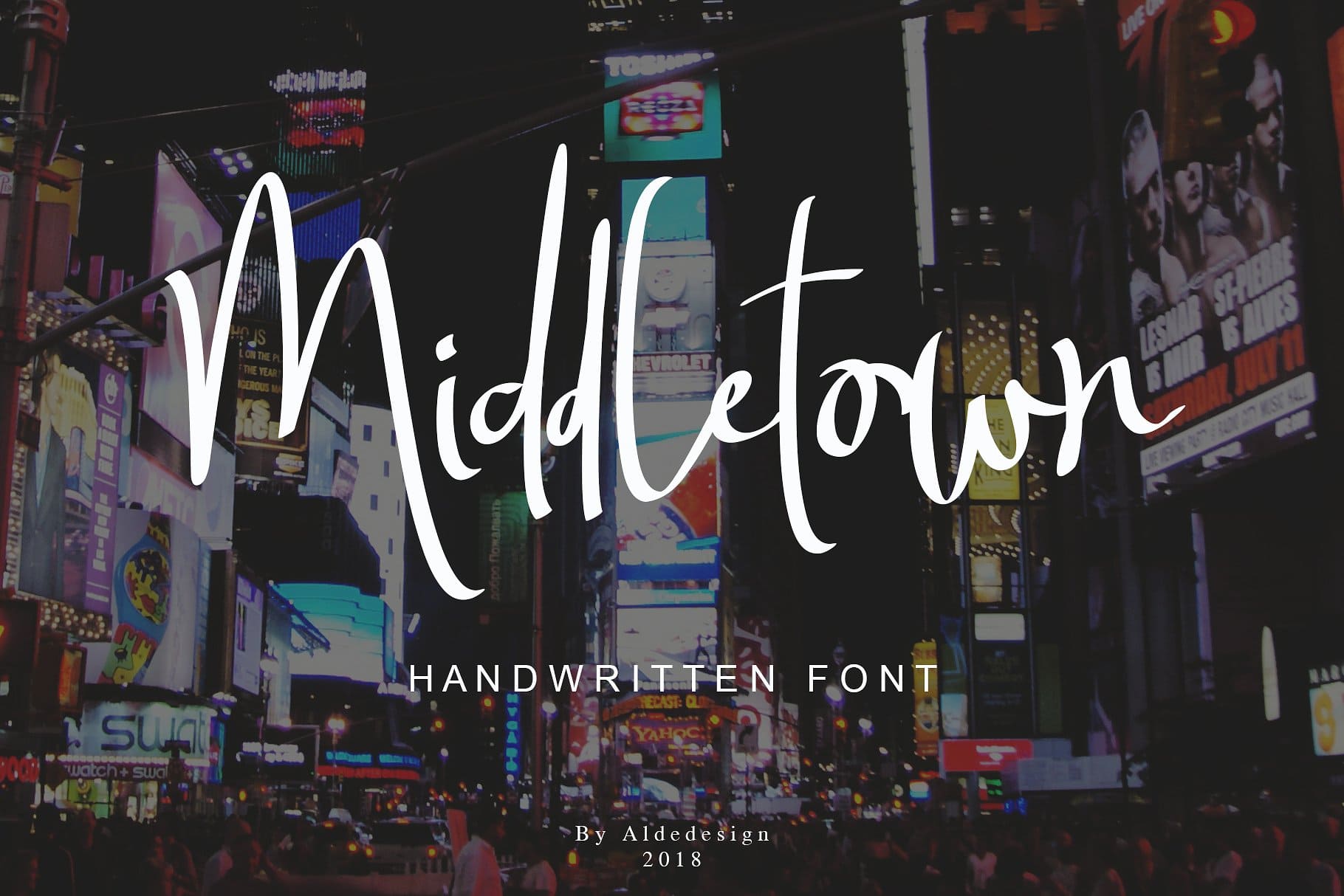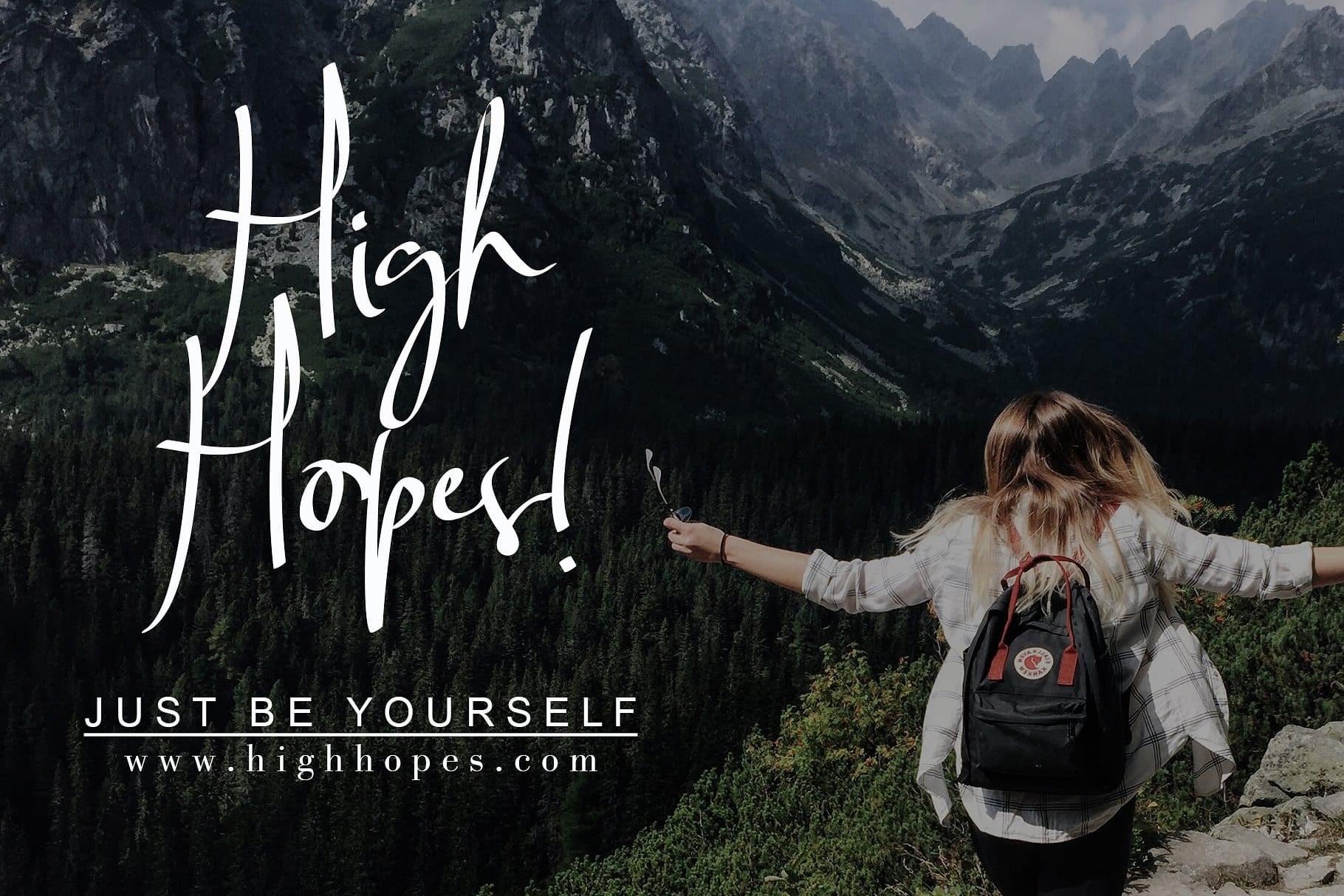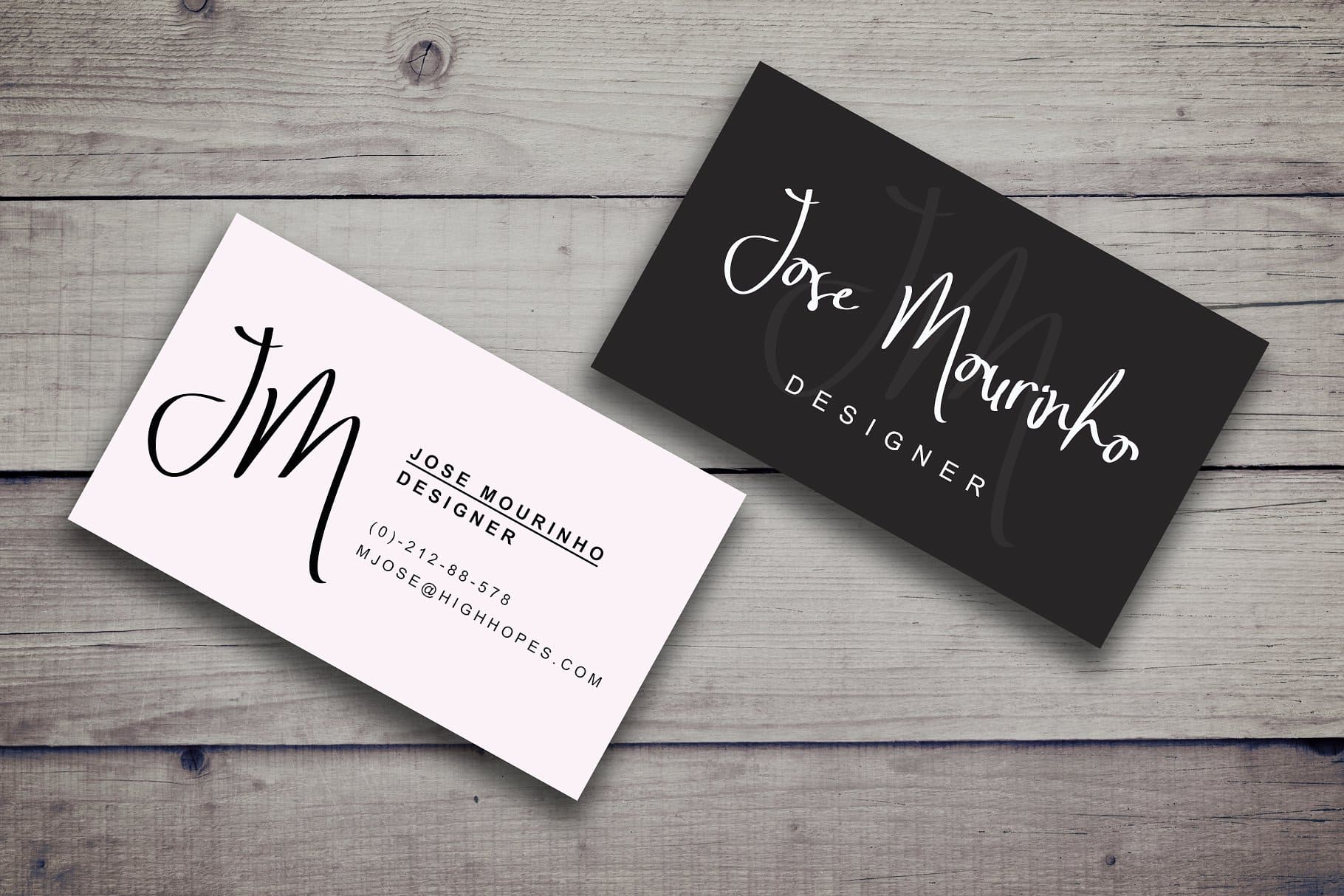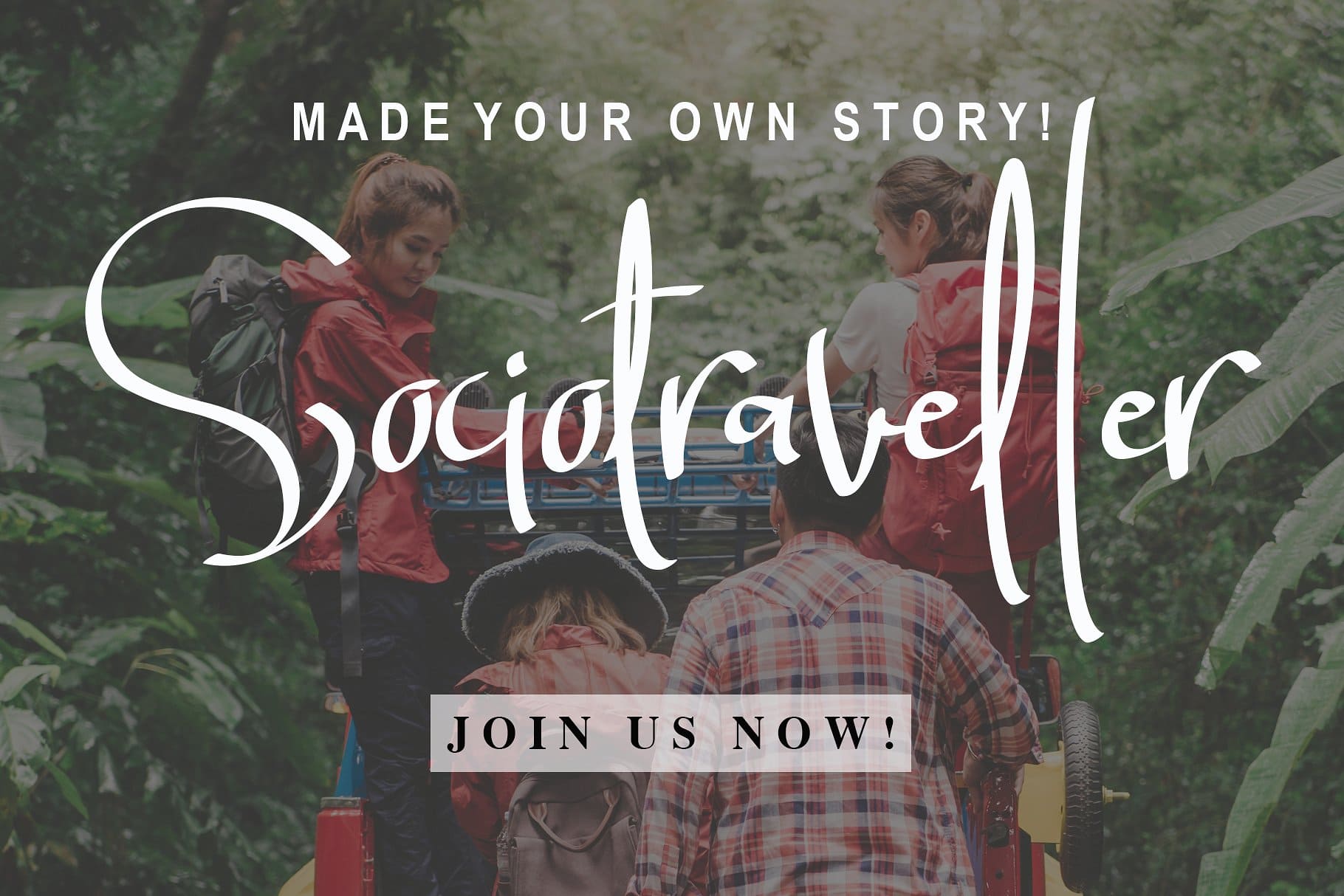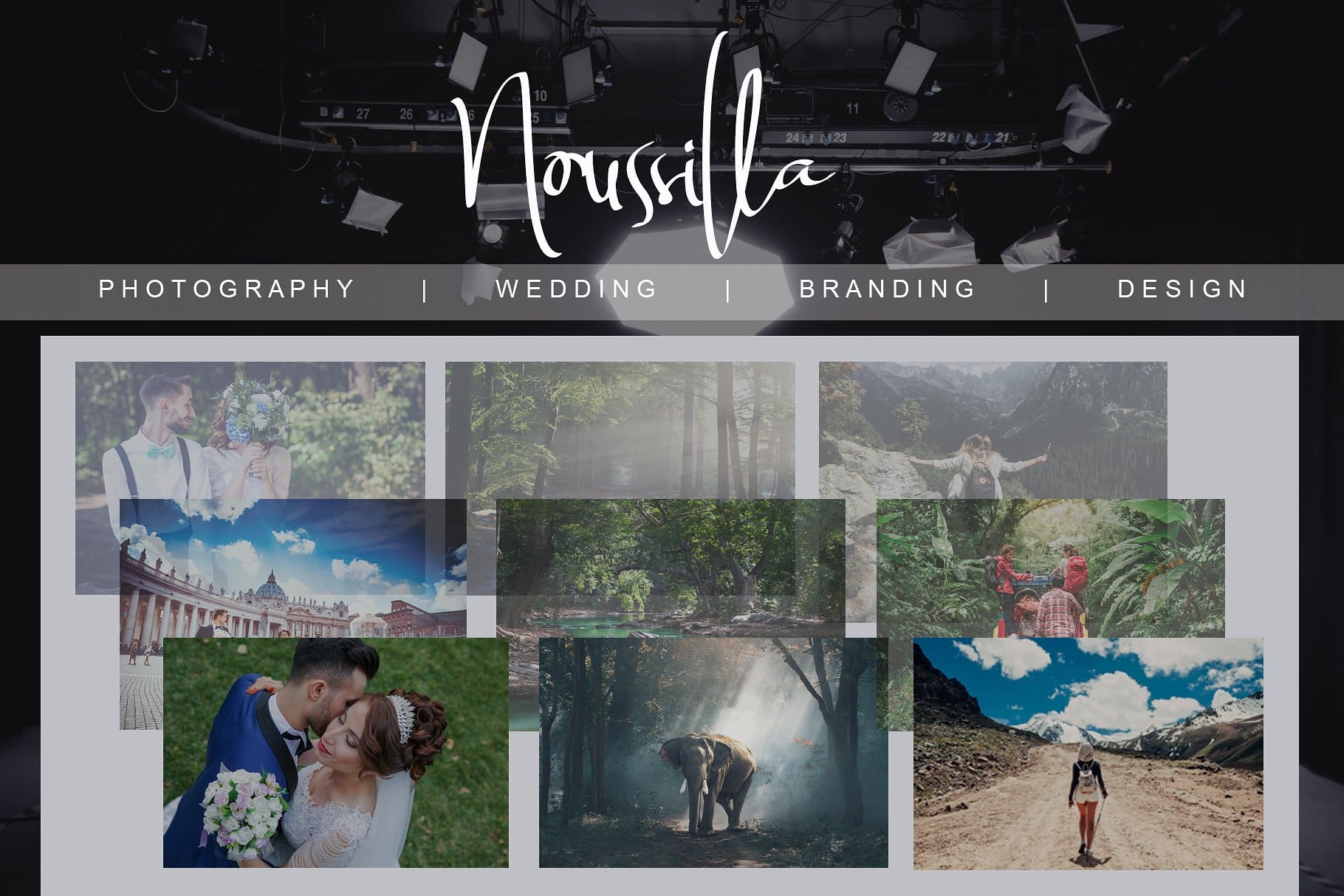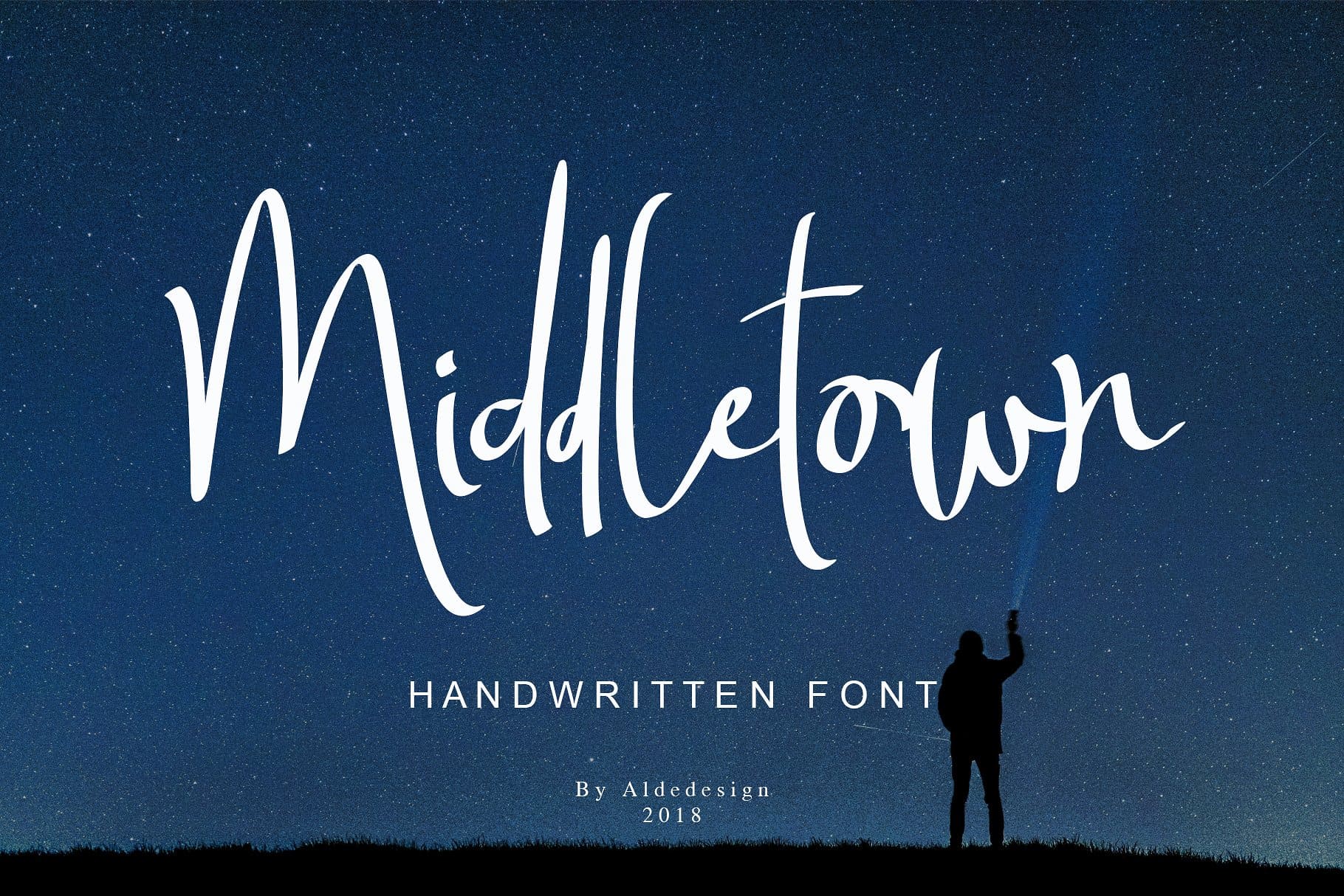
Middletown Family (4 fonts)
From AldeDesign
Middletown is a great choice for watermark on photography, signature or signature logo design, album covers, business cards, quotes, and many other design projects.